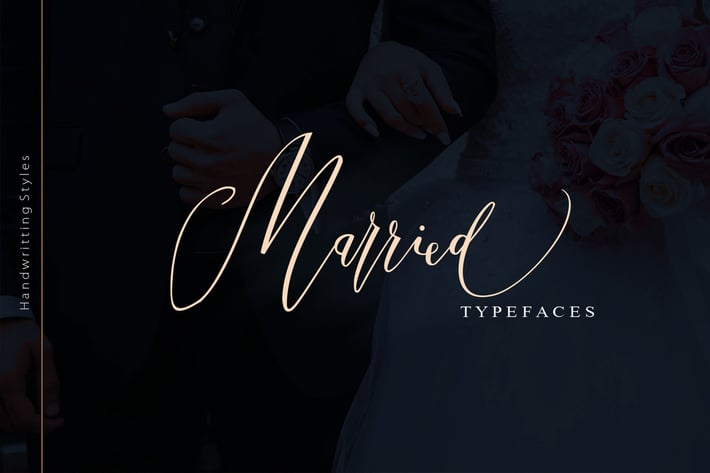
Married Typeface
Married Typefaces is a modern handwritten font with a wavy calligraphy style, carefully crafted to make your text look beautiful, this font will suit many different projects: photography, watermarks, quotes, blog headers, posters, weddings, branding, logos , fashion, apparel, invitation letter, stationery, etc.Married Typefaces ncludes full set uppercase and lowercase letters, numerals, a large range of punctuation and ligatures, giving realistic handwritten style. let's go into it, find the form of letters with various forms of ligatures in it, make sure your graphics dreams come true here.Files included